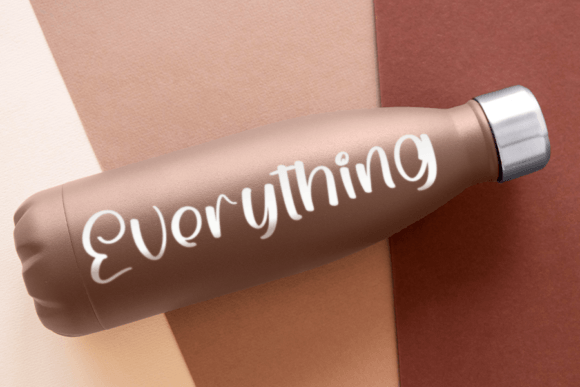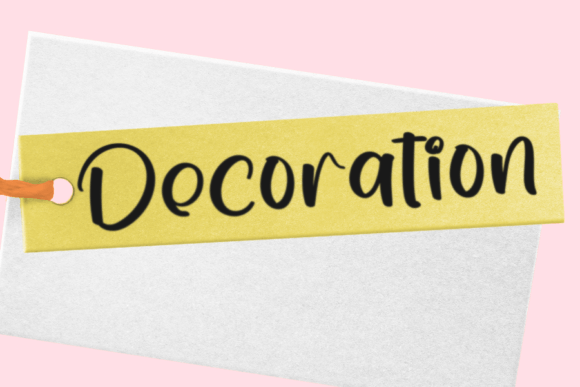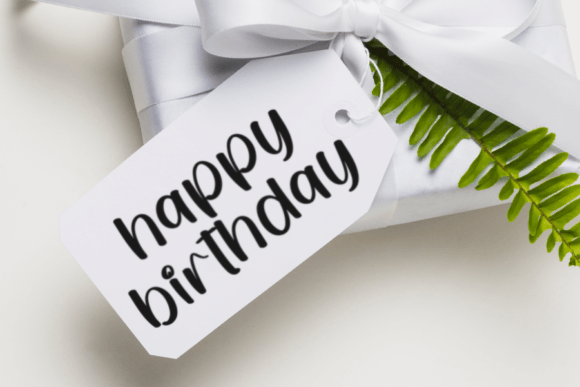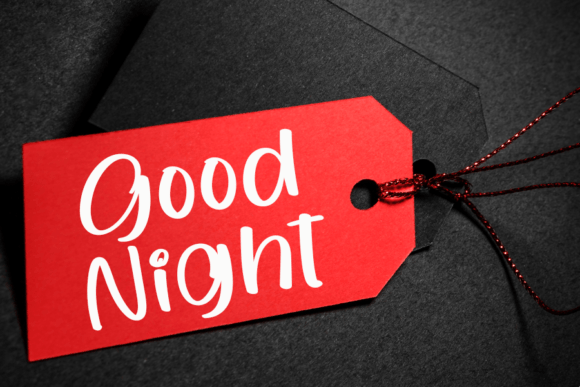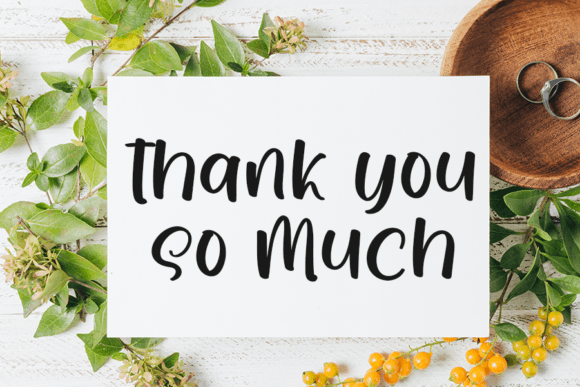
Happy Valentine Font
Fall in Love with Happy Valentine Handwritten Font
The Happy Valentine Handwritten Font is an elegant and romantic script that brings warmth, charm, and sophistication to your design work. Created with smooth, flowing strokes and a timeless handwritten style, this font is perfect for celebrating love, emotion, and heartfelt moments in your creative projects.
Ideal for Invitations, Greeting Cards, and Romantic Branding
Happy Valentine is especially suited for wedding invitations, Valentine’s Day cards, love letters, and romantic brand campaigns. Its graceful lines and balanced composition make every message feel personal, intimate, and expressive.
In addition, this font shines in boutique logos, personalized gifts, and event signage, where a sweet and elegant touch is needed to create emotional impact. It’s the ideal choice when you want your designs to feel both personal and polished.
A Timeless Script with Handwritten Elegance
What sets the Happy Valentine Handwritten Font apart is its ability to blend calligraphic beauty with modern design needs. Each letter is crafted with care, giving the font a handcrafted feel while preserving clarity and style. As a result, it feels like a love note written by hand—genuine and heartfelt.
Furthermore, its even spacing and elegant flow make it suitable for both headline and body text, allowing for design flexibility across multiple formats.
Works Beautifully Across Print and Digital Projects
From digital invitations to custom stationery and social media graphics, Happy Valentine is designed to perform flawlessly. It scales well across sizes and mediums, ensuring your typography remains beautiful and legible whether displayed on-screen or in print.
Moreover, the font pairs wonderfully with minimal serif or sans-serif fonts, allowing you to create modern compositions with classic charm. Whether you’re creating a soft wedding suite or an elegant Instagram post, this font fits right in.
Why Choose Happy Valentine Handwritten Font?
• Romantic and elegant handwritten style
• Perfect for weddings, Valentine’s cards, and emotional designs
• Clean, balanced, and legible in all sizes
• Suitable for both digital and print media
• Adds warmth, beauty, and sophistication to your typography
Share the Love with Every Design
In conclusion, the Happy Valentine Handwritten Font is a beautiful and expressive typeface made for designers who want to celebrate love and emotion in their work. Its elegant curves, timeless appeal, and graceful charm make it a standout choice for heartfelt designs.
Let Happy Valentine add a touch of romance to your next project. Whether you’re creating a love note, a bridal suite, or a brand built around affection, this font helps you express it all with beauty and emotion.